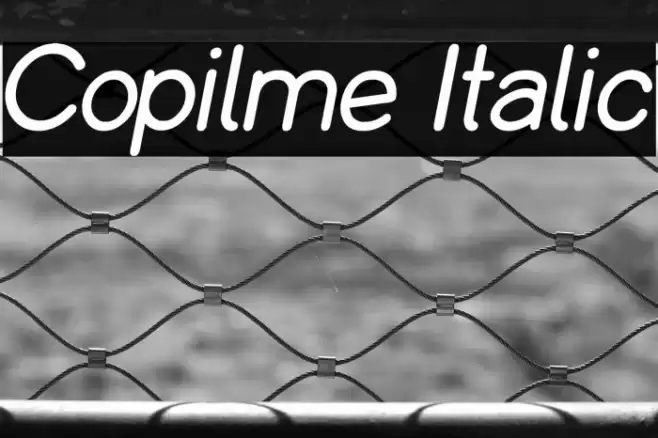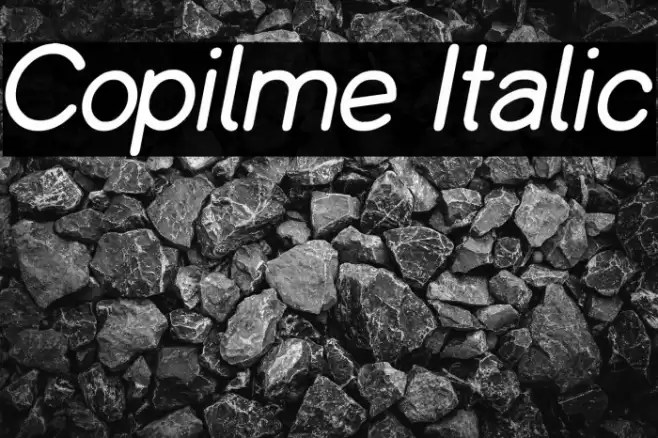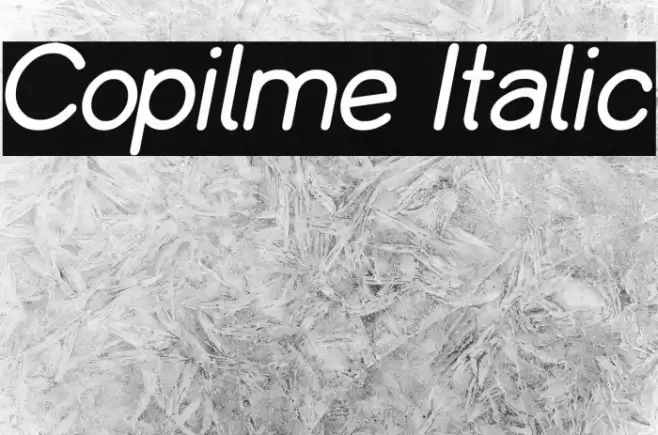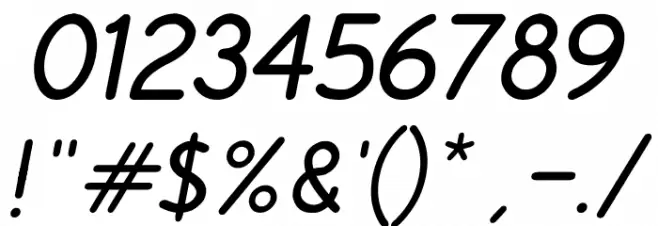
Copilme Italic Font
Copilme Italic Description
This font features a sleek, italicized design with a modern and clean aesthetic. The characters are slightly slanted, giving a sense of motion and elegance. The strokes are consistent in thickness, providing a uniform appearance across all letters and numbers. The uppercase and lowercase letters are well-proportioned, with rounded edges that soften the overall look. The numerals are clear and easy to read, maintaining the same style as the alphabet. Special characters are included, matching the font's smooth and contemporary style. This font is versatile, suitable for various applications where a modern and stylish look is desired.
A modern, italicized font with smooth, rounded edges and consistent stroke thickness from Uncategorized fonts.